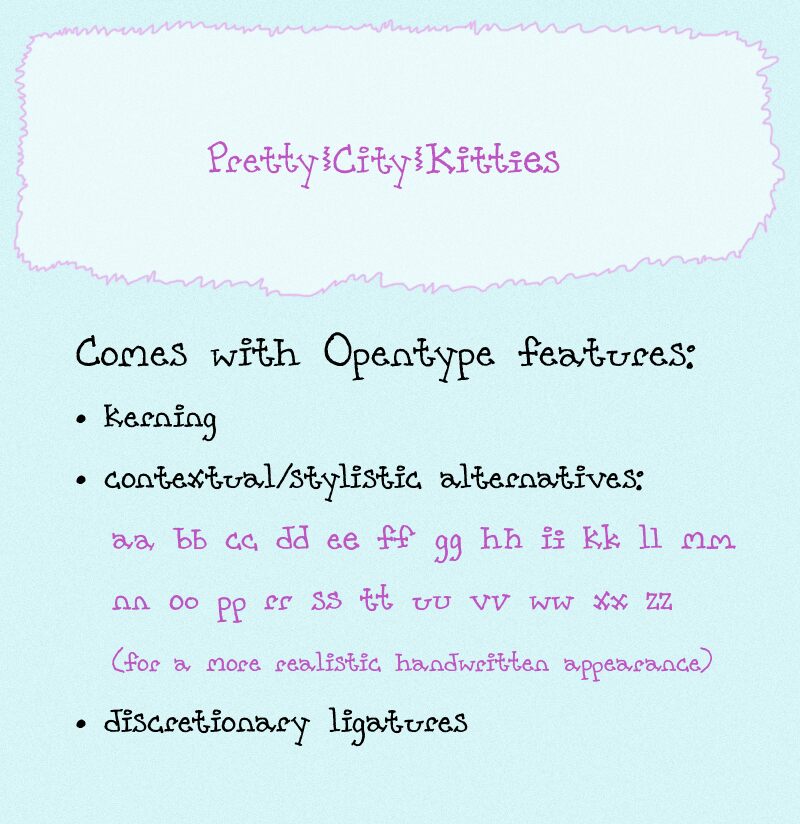
Pretty City Kitties by Lee Batchelor is a free handwritten font with tall, narrow letters and a deliberately uneven line. Its wavering strokes shift from blunt to lightly flared ends, and rounded forms sit beside sharper, angular ones. The changing height and loose spacing give the lettering the look of an eccentric hand-drawn shop sign.
Whimsical city scenes and offbeat neighborhood culture suit cafe packaging, children's publishing, and event posters. It is especially convincing in a playful storefront logo.
OpenType features include:
- Kerning
- Contextual and stylistic alternatives
- Discretionary ligatures